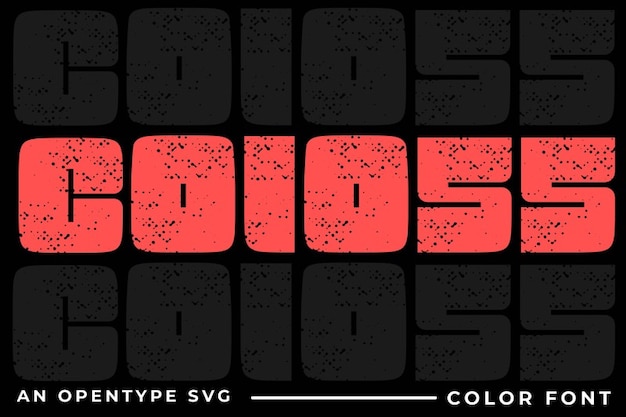
Coloss is a maxi-style font with a robust, bold presence that commands attention. Its thick, heavyweight letterforms exude strength and confidence, making it ideal for impactful headlines, branding, and statement designs. With a balance of power and modern aesthetics, Coloss ensures every word stands out with authority and undeniable visual impact.